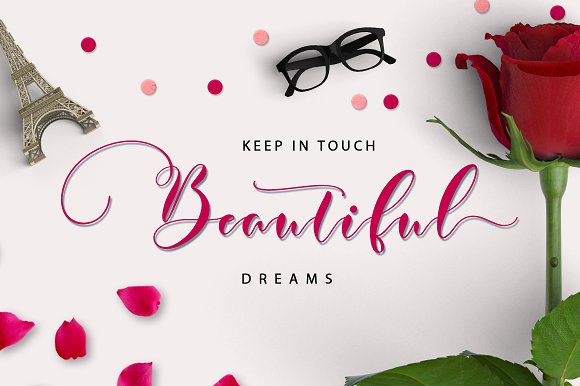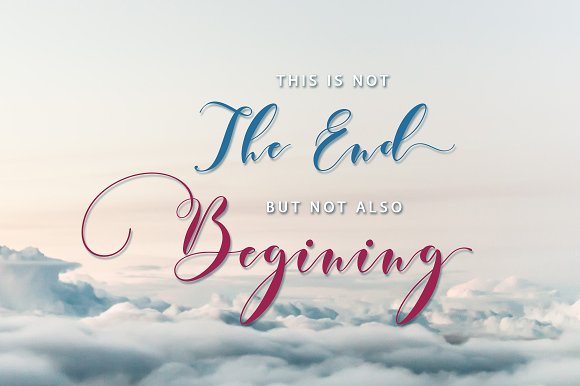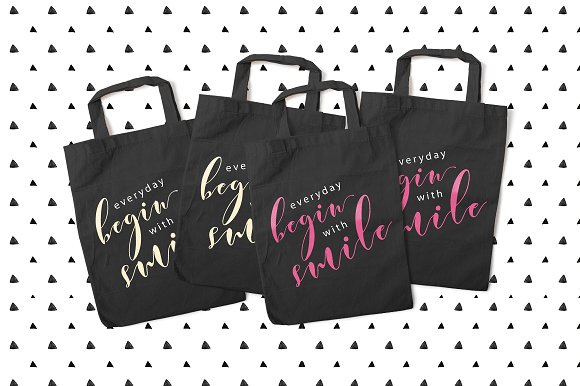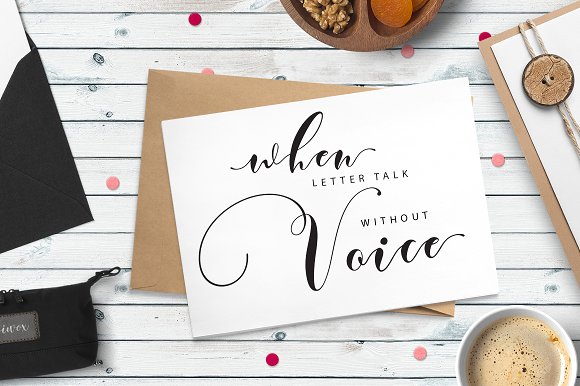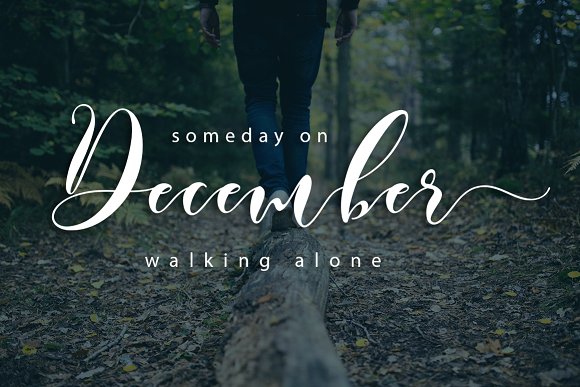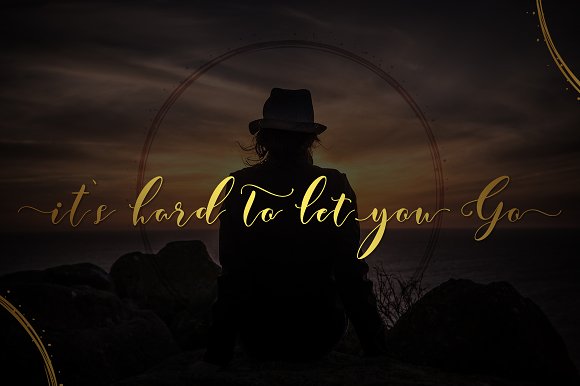
Introduction to Justmine Font
Justmine is a stunning handwritten font created to enhance feminine, floral designs.
With a high contrast stroke weight and modern script design, Justmine is perfect for display or bold design intention Download Justmine, a beautiful handwritten font.
Key Features of Justmine Font